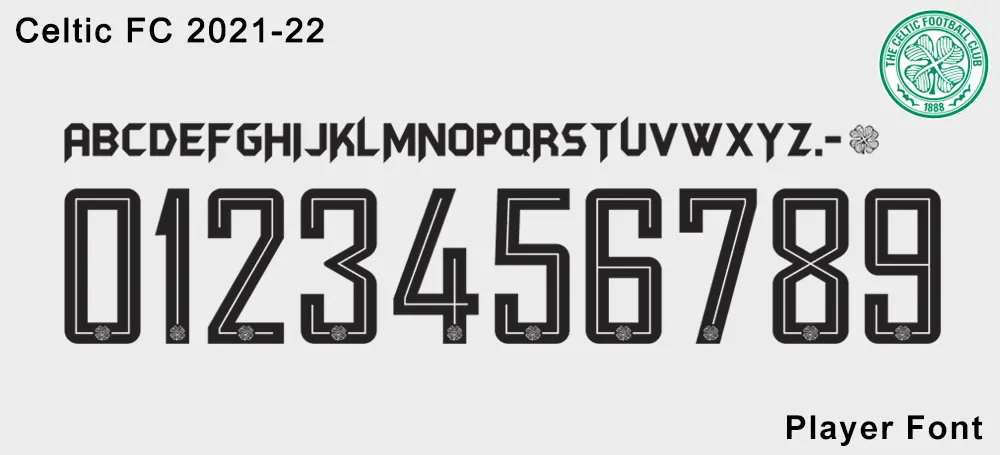
Celtic FC 2021-22 Kit Font
Celtic will wear the fonts in the 2021-22 Europa League. Celtic 21-22 kit has a very special font appearance and is inspired by Batman. These letters are inspired by the fonts used by Batman Forever, while numbers have the style of Agency FB fonts. We provide font files and vector files. The font contains TTF